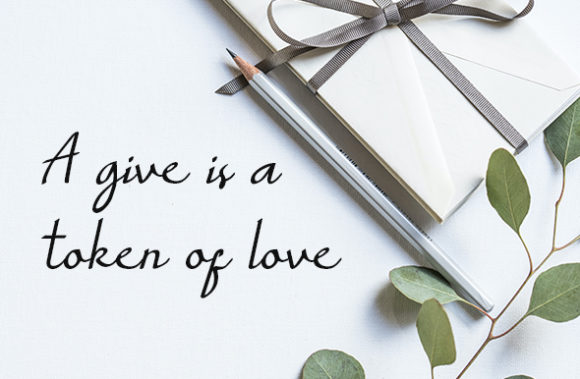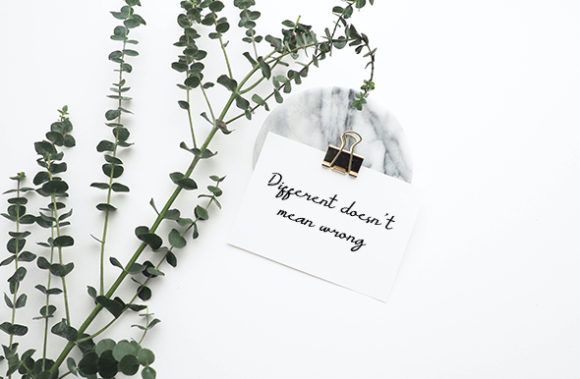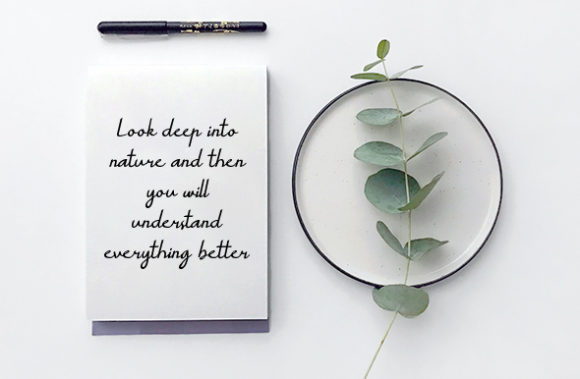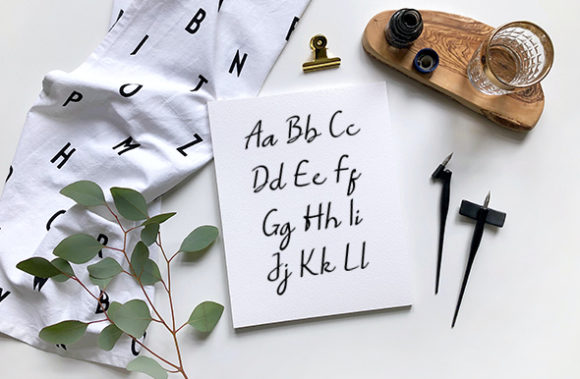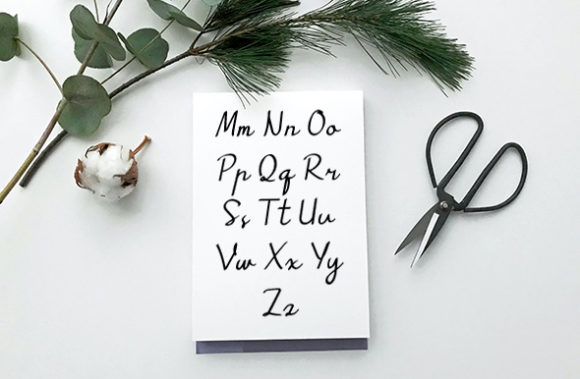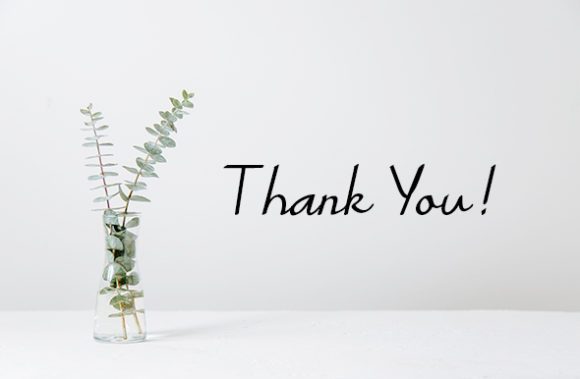
Myrtale Font
About Myrtale Font
Myrtale sounds like an enchanting and sophisticated handwritten font that perfectly balances classic calligraphic elements with a modern twist. With its exquisite design, Myrtale has the potential to elevate your creative projects to new heights. Here are some captivating ideas on how to use Myrtale to create stunning designs:
1. Wedding Invitations: Design elegant and romantic wedding invitations using Myrtale font to set the tone for a memorable and sophisticated celebration.
2. Thank You Cards: Create beautifully crafted thank you cards featuring Myrtale font to express gratitude with style and grace.
3. Quotes and Inspirational Prints: Use Myrtale font to design captivating quote prints or inspirational posters that exude elegance and charm.
4. Greeting Cards: Design chic and eye-catching greeting cards for various occasions, such as birthdays, holidays, or special events, using Myrtale font for a touch of sophistication.
5. Branding and Logos: Incorporate Myrtale font into branding elements, logos, and business cards to give your brand a sense of timeless elegance.
6. Stationery and Letterhead: Apply Myrtale font to stationery design and letterhead for a refined and polished look in your professional correspondence.
7. Social Media Graphics: Create captivating and visually appealing social media posts, stories, and banners with Myrtale font to capture the attention of your audience.
8. Book Covers: Use Myrtale font in book cover designs, whether for novels, poetry collections, or self-help books, to add a touch of sophistication and allure.
9. Blog and Website Titles: Apply Myrtale font to blog or website titles and headers for a stylish and elegant presentation.
10. Personal Branding: Use Myrtale font for personal branding elements, such as signatures or watermarks, to give your online presence a touch of sophistication and refinement.
11. Event Signage: Design chic and elegant event signage, such as welcome signs or seating charts, using Myrtale font to create a memorable atmosphere.
12. Artistic Lettering: Experiment with Myrtale font for artistic lettering pieces, combining its classic calligraphic influences with modern creative techniques.
13. Business Presentations: Incorporate Myrtale font into business presentations to add a touch of elegance and sophistication to your slides.
14. Menu Design: Create sophisticated and visually appealing menus for restaurants or cafes using Myrtale font to elevate the dining experience.
15. Packaging Design: Use Myrtale font in product packaging design to add a sense of luxury and elegance to your products.
16. Art Prints: Design exquisite art prints featuring Myrtale font to showcase its timeless beauty and refined letterforms.
17. Personalized Gifts: Apply Myrtale font to create personalized gifts, such as custom stationery, framed prints, or engraved items, for a touch of elegance and thoughtfulness.
18. Handwritten Quotes: Use Myrtale font to write out handwritten quotes or messages in digital art, social media graphics, or printed artworks.
19. Elegant Invitations: Design sophisticated event invitations for formal gatherings, charity galas, or corporate events using Myrtale font for a timeless and elegant touch.
20. Beauty and Fashion Branding: Incorporate Myrtale font into beauty or fashion branding to convey a sense of elegance, grace, and sophistication.
In summary, Myrtale’s exquisite and masterfully designed style, blending classic calligraphy with contemporary elegance, makes it an ideal choice for a wide range of design projects. Fall in love with Myrtale font and let it elevate your creative endeavors to the highest levels, leaving a lasting impression of timeless beauty and sophistication on your audience.